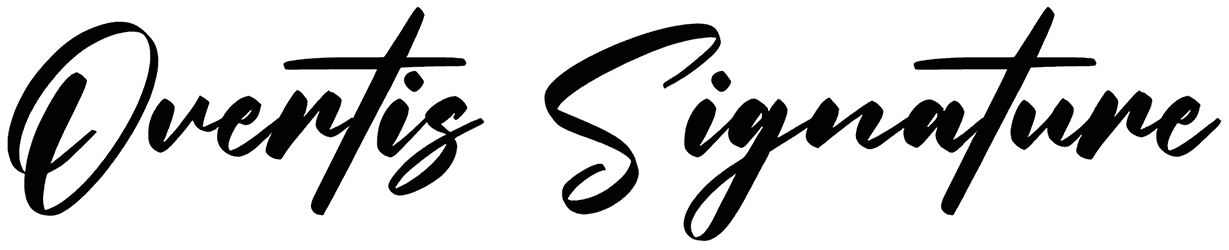
Overtis Signature Font
If you are in the mood for adding your personalized signature to your creative ideas, including gift cards, invitations, magazines, product packaging, or business cards, we have an exclusive offer, such as Overtis Signature for you.
Since this script font comes with a cursive style that dances along the baseline, reading some of its characters would be a little bit tricky. Since it carries a sense of personalization, precision, delicacy, or dynamism, the lack of numbers will be negligible.